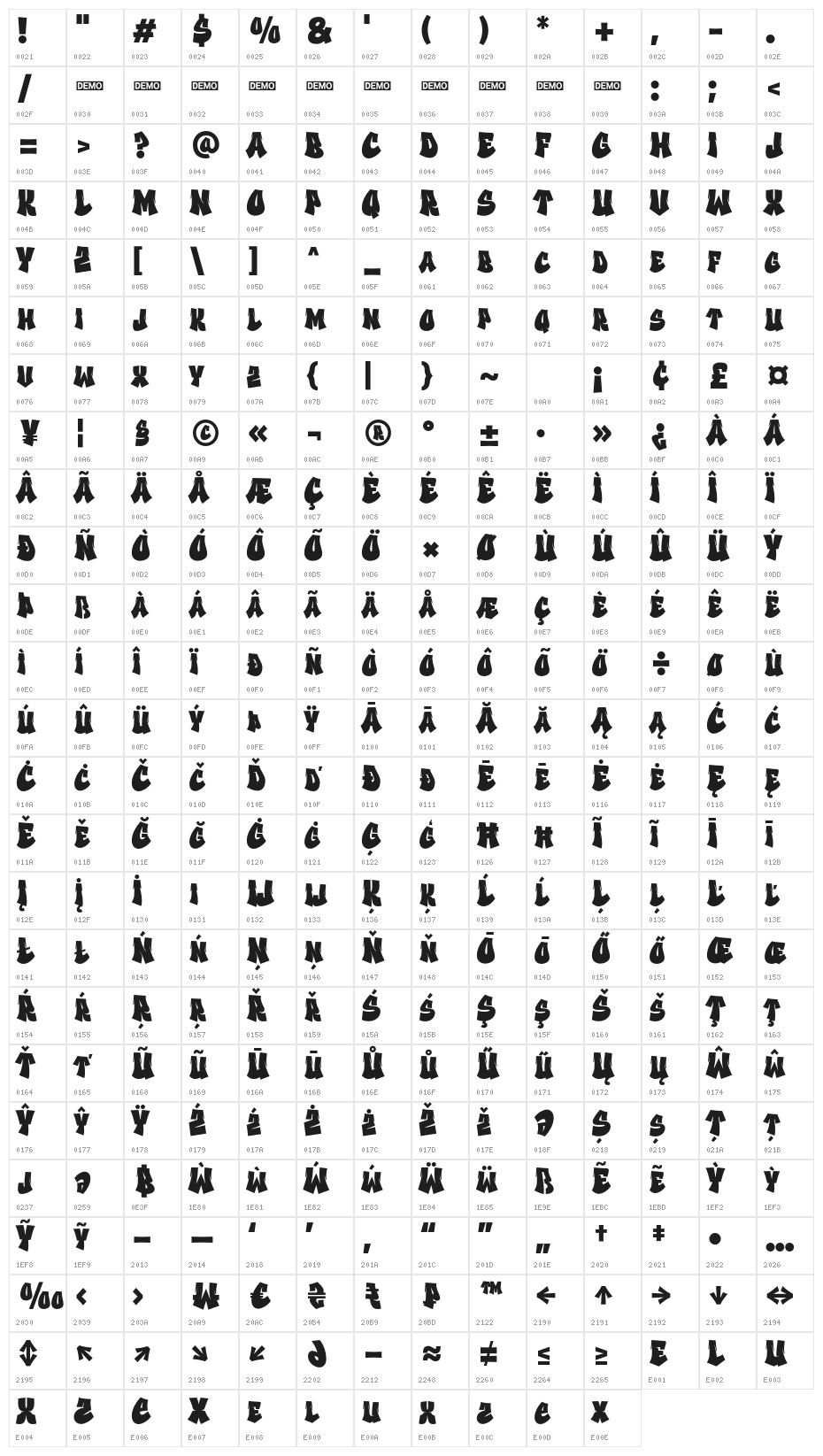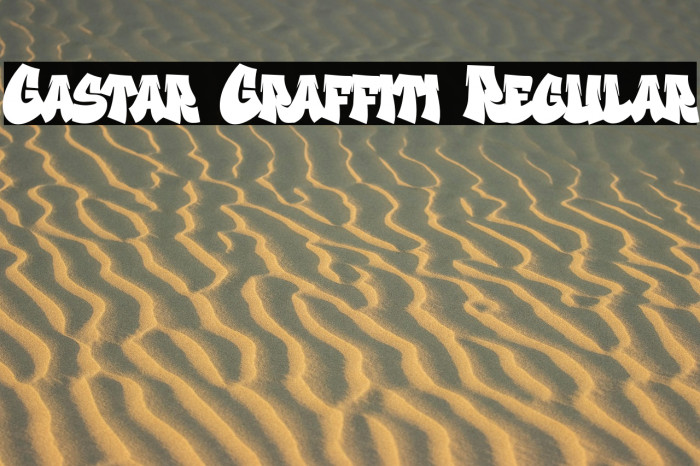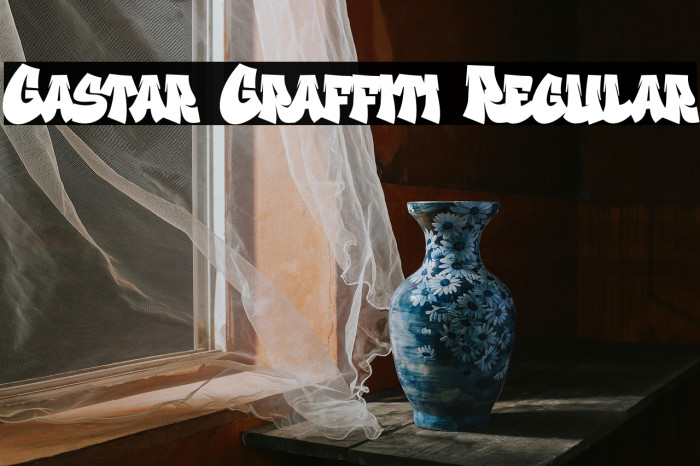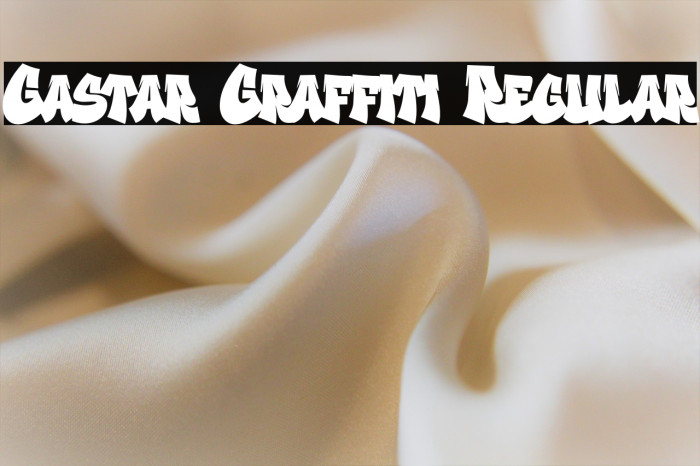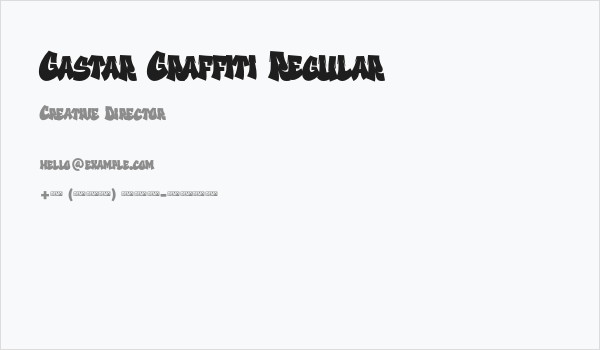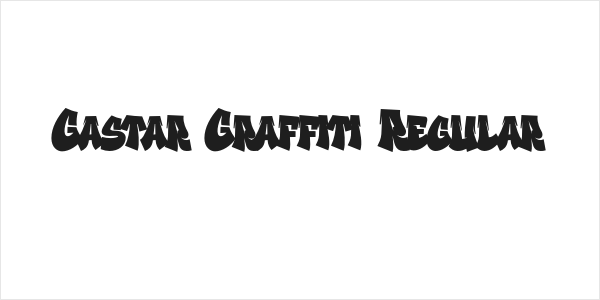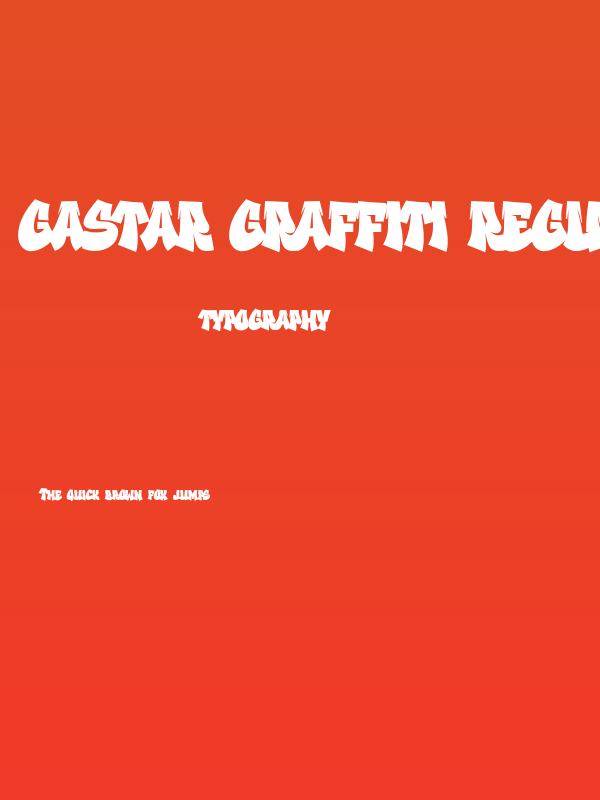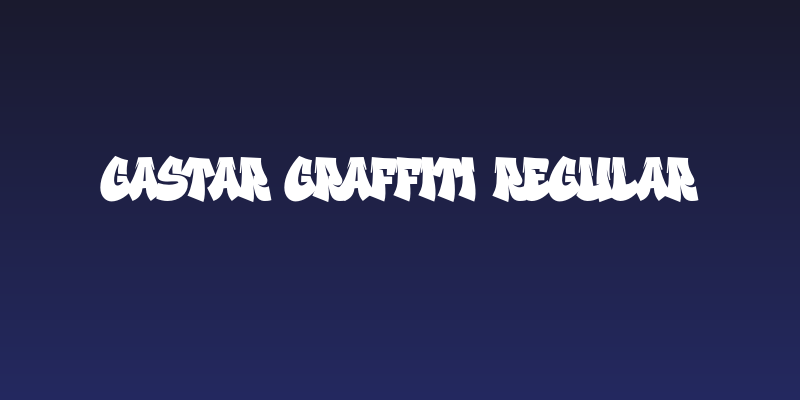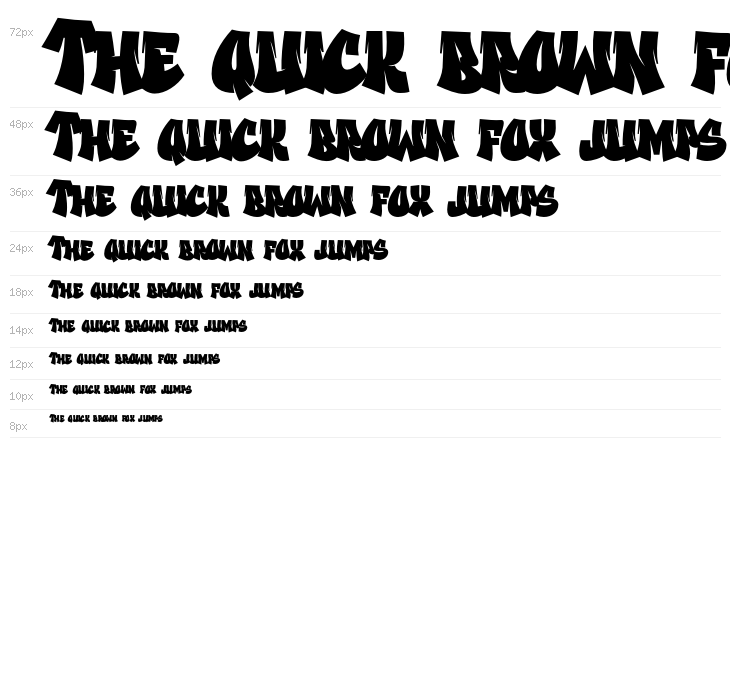
Gastar Graffiti Regular Font
Gastar Graffiti Regular Description
This font embodies the raw, energetic style of graffiti art, featuring bold, angular letterforms with sharp edges and dynamic shapes. The uppercase and lowercase letters maintain a consistent style, emphasizing a rebellious and urban aesthetic. The numbers and special characters are equally bold, ensuring a cohesive look across all text elements. The font's design captures the essence of street art, making it ideal for projects that require a strong, impactful visual presence.
| Overall Style | Urban, Rebellious, Energetic |
| Proposed Projects | Ideal for street art-themed designs, urban branding, music album covers, and event posters. |